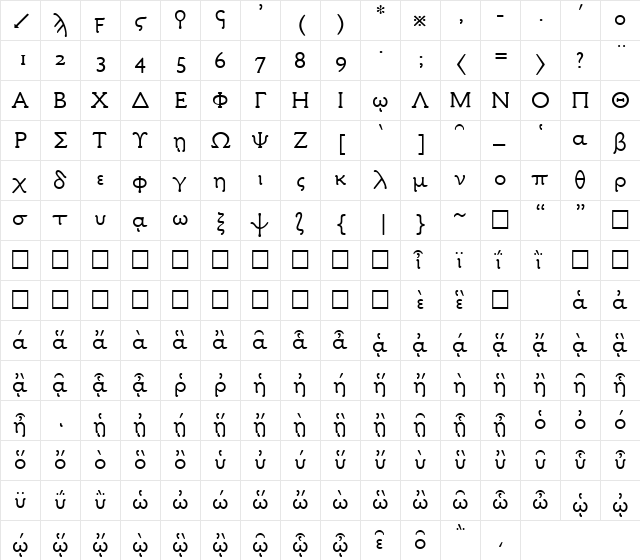
Milan Greek Normal
Design Context for Milan Greek Typeface
Milan Greek takes a measured approach to typography — its balanced proportions and neutral character make it a reliable workhorse for both digital and print work.